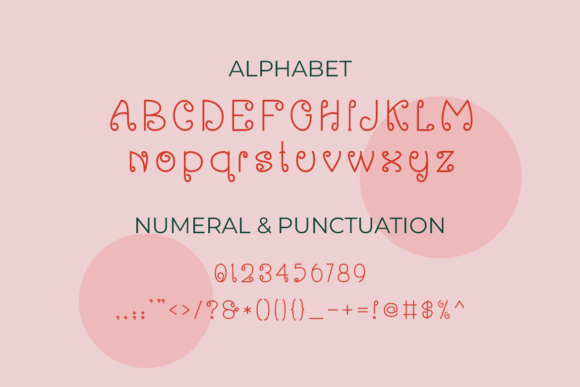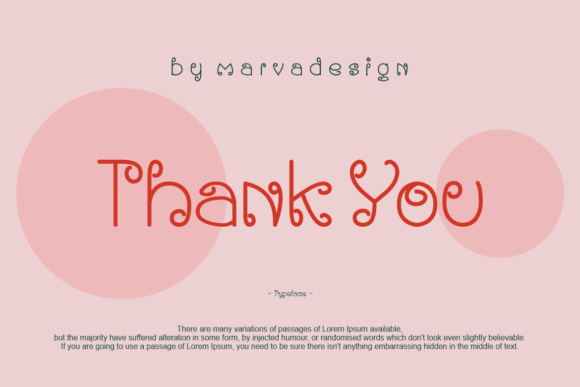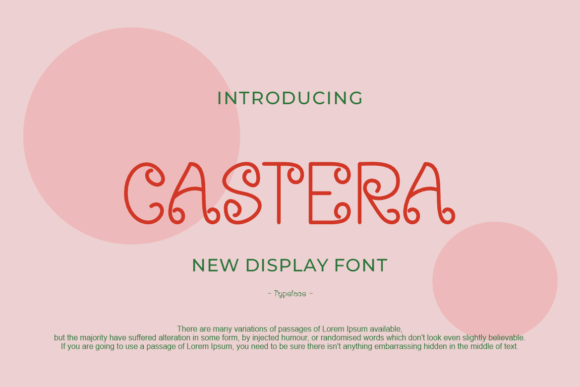
The Castera Font: A Fun, Curly Display Font to Elevate Your Designs
I’ll never forget the time I was working on a whimsical craft project for a client, and I just couldn’t find the right font to match the playful vibe. The design needed something fun, curly, and eye-catching, but everything I tried seemed either too boring or too over-the-top. That’s when I stumbled upon the Castera font, and it instantly became the perfect fit. In this article, I’ll share my love for this unique display font, its features, and how to make the most of it in your designs.
An Honest Review of Castera Font
What I Love About Castera Font
- ✨ Uniquely shaped characters: Each letter in Castera has its own personality, making your text stand out in a crowd.
- ✅ Perfect for display text: Whether it’s a headline, title, or caption, Castera font adds a touch of whimsy and fun.
- 🌈 Great for colorful designs: The curly nature of the font pairs beautifully with bright colors and playful patterns.
While Castera is a fantastic font, there are a few things to keep in mind:
- ⚠️ Legibility at small sizes: Like many script fonts, Castera can become difficult to read when scaled down. It’s best used for display text rather than body text.
- 🤔 Limited use in formal designs: The playful nature of Castera makes it less suitable for formal or professional projects that require a more traditional look.
The Backstory of Castera Font
Castera was designed with the intention of bringing a bit of whimsy and playfulness into the world of typography. Its creator, inspired by the curly and flowing lines found in hand-drawn letters, aimed to craft a font that would stand out in any design. Whether it’s used for a craft project, a fun blog post, or a creative business card, Castera is sure to add a unique touch.
Q: What type of projects is Castera best suited for?
A: Castera is perfect for projects that require a playful and whimsical touch, such as craft blogs, creative business cards, and fun social media graphics.
Q: Is Castera a difficult font to read?
A: Like many script fonts, Castera can be challenging to read at small sizes. It’s best used for display text rather than body text.